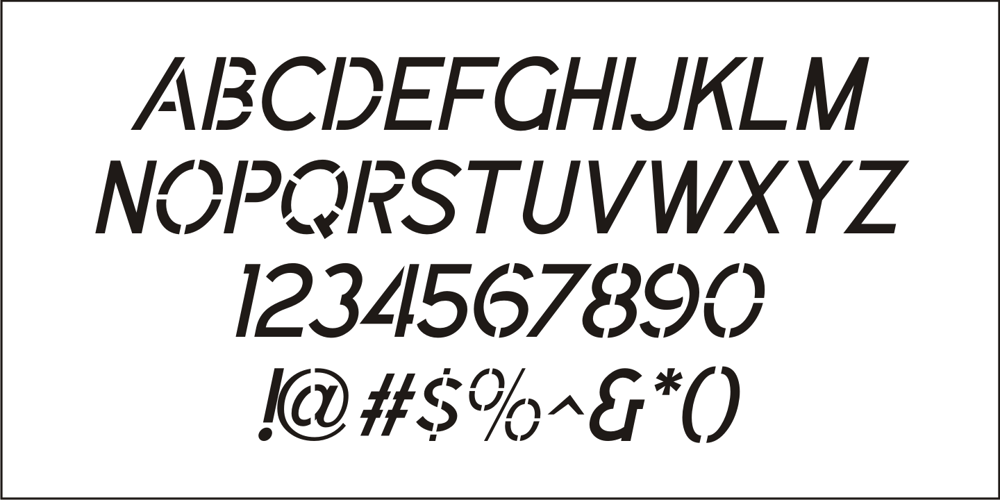
Sussex Semi Stencil JNL Font Family was designed by Jeff Levine and published by Jeff Levine. Sussex Semi Stencil JNL contains 2 styles and family package options. A set of oil board stencils from Great Britain (probably from the 1950s) was the model for Sussex Semi Stencil JNL, which is available in both regular and oblique versions. Because many of the characters are ‘solid’ rather than containing the breaks [known as ‘islands’] of a traditional stencil letter, this is why the type design was given the ‘semi stencil’ designation.